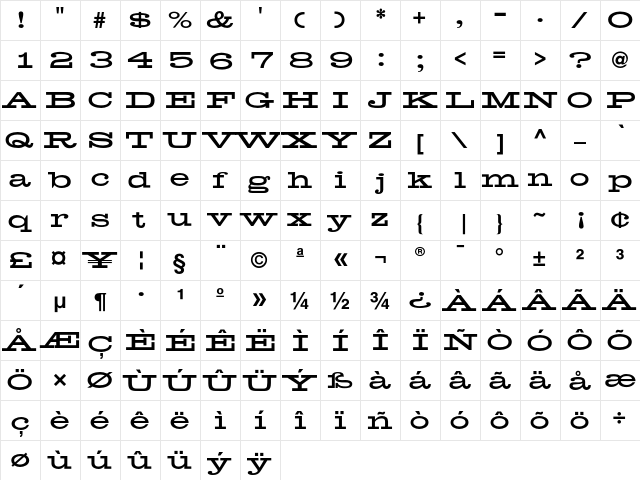
Helenic Ext
Design Context for Helenic Typeface
Helenic is a composed and adaptable typeface that performs quietly and consistently across a wide range of design contexts.